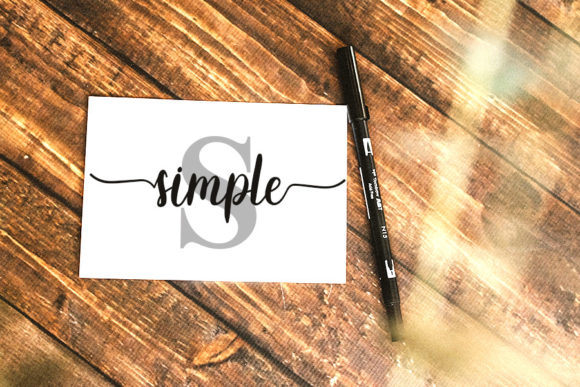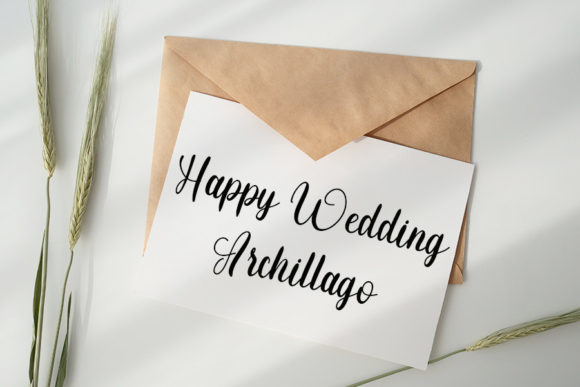
Summer Miss You Font
db-ku.com - Script & Handwritten -- Summer Miss You is a beautiful and smooth script font, that exudes elegance and class. This font is PUA encoded which means you can access all of the amazing glyphs and ligatures with ease!